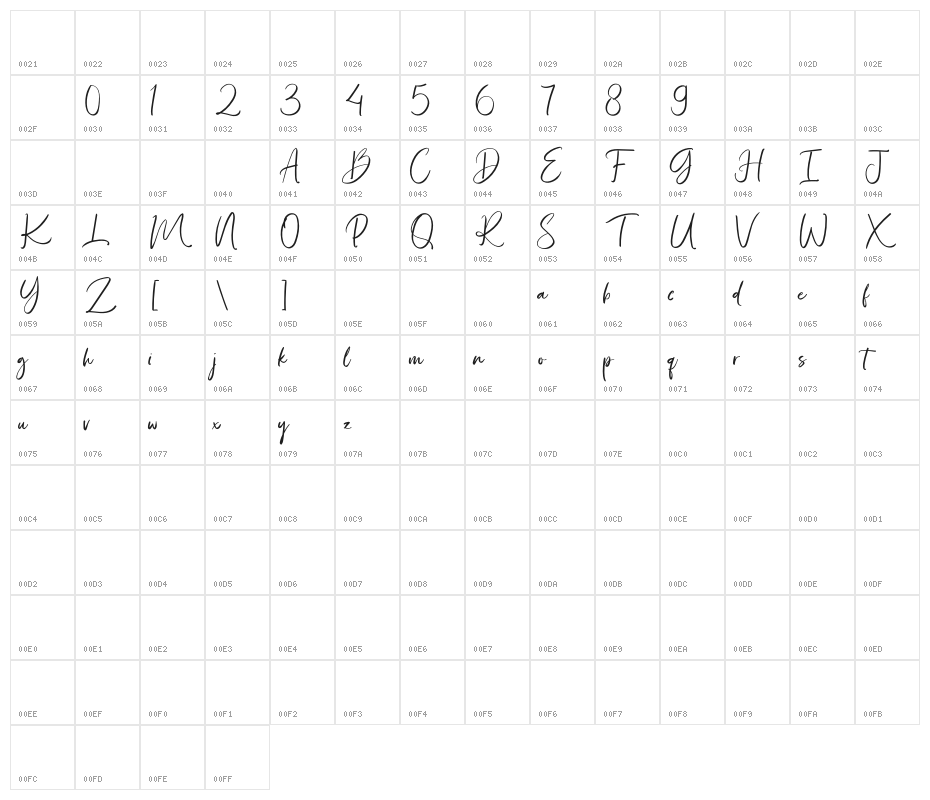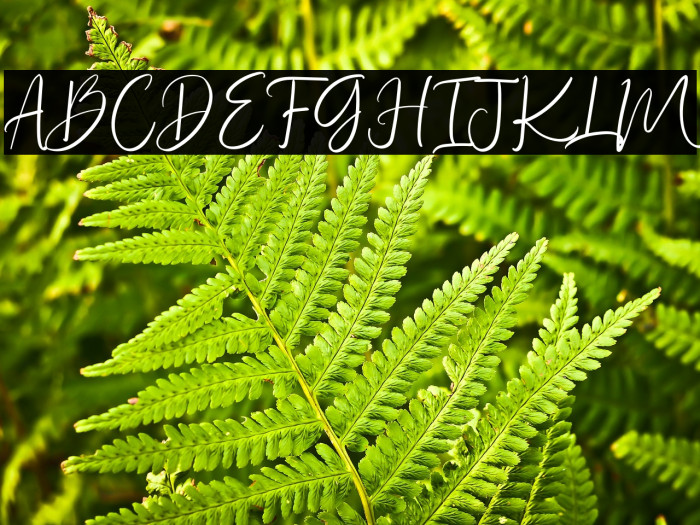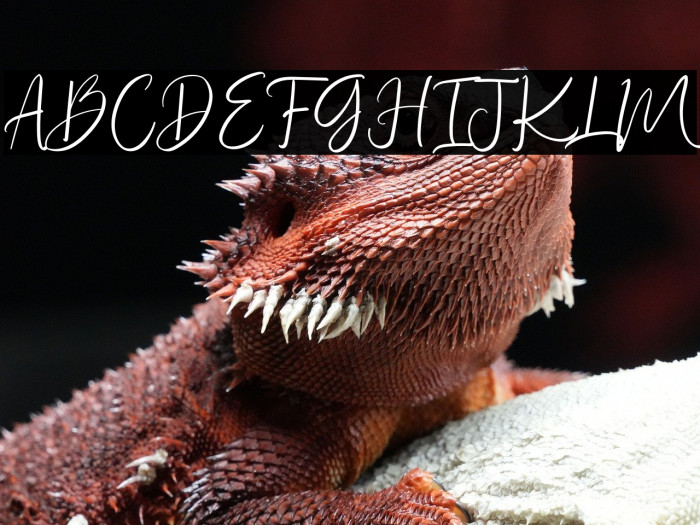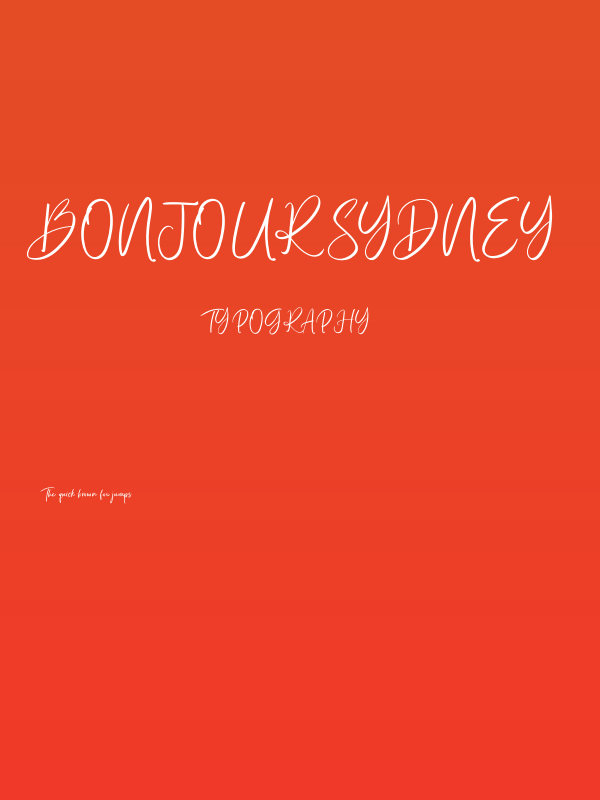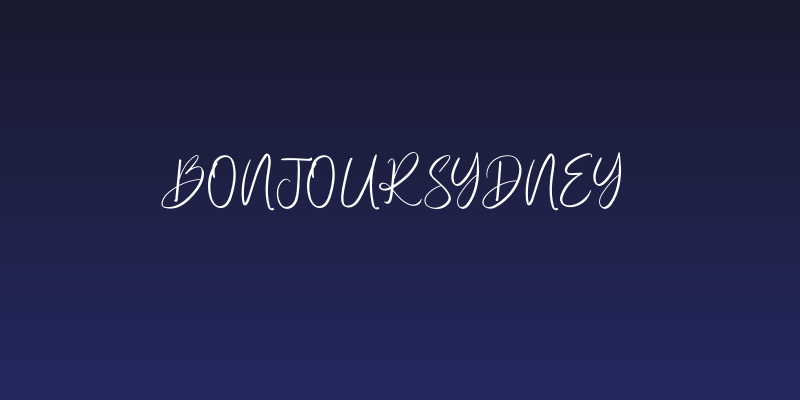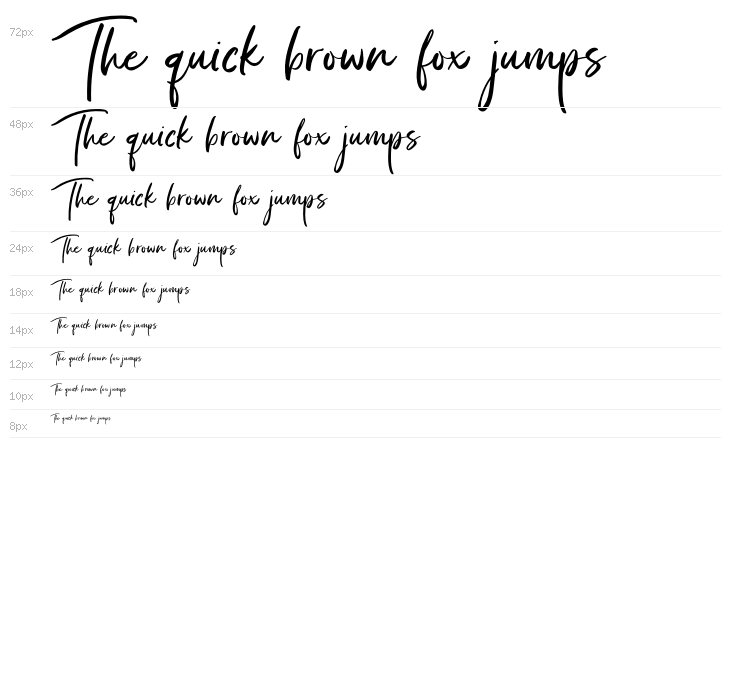
Bonjour Sydney Font
Bonjour Sydney Description
This elegant script font features a flowing, cursive style with smooth, connected strokes that mimic natural handwriting. The uppercase letters are tall and graceful, with sweeping curves and loops that add a touch of sophistication. The lowercase letters maintain a consistent flow, enhancing readability while preserving the font's artistic flair. The numerals are distinct yet harmonious with the overall style, featuring slight variations in stroke thickness that add visual interest. Special characters are thoughtfully designed to complement the alphabet, ensuring a cohesive look across all text. This font exudes a sense of elegance and charm, making it ideal for projects that require a personal, handwritten touch.